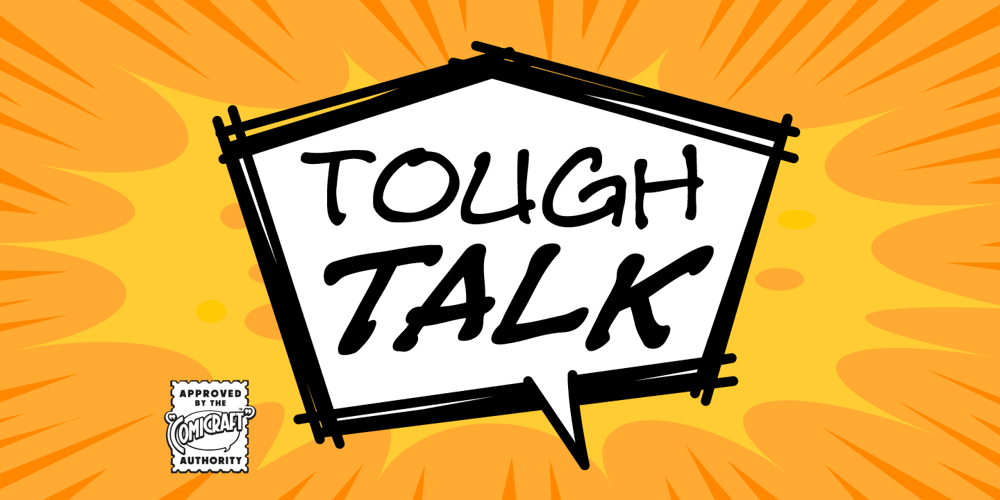
Tough Talk
Tough Talk font
Tough Talk Font Family was designed by John Roshell and published by Comicraft. Tough Talk contains 4 styles and family package options. What’s that, bub? Looking for a whole train full of whupass? A six pack of adamantium shred? Listen, are you talking to me or chewing a brick? Either way you’re gonna get all your teeth broken. And if you think that’s all just Tough Talk, make your move, bub. (Our new font, ToughTalk, put the words in Wolverine’s mouth in the pages of Steve Skroce’s WOLVERINE: BLOOD DEBT, but don’t tell the short Canadian over there, he’s likely to get upset at the mere suggestion that people put words in his –) What? No, I didn’t, uh, say you were — ulp — short… Updates:Feb 2019 – added Bold weight & Crossbar I Technology™Four weights with alternate uppercase alphabets • Languages: Western Europe